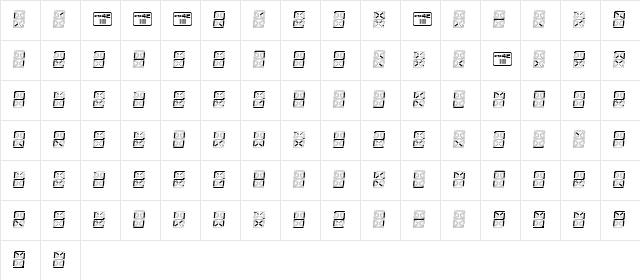
Complete eDisplay Demo Italic glyph index. Displaying only characters natively supported by eDisplay Demo Italic font.
eDisplay Demo is built around its visual character rather than neutral utility - its distinctive forms are designed to make an impression at display sizes. The slanted form adds forward momentum and visual energy.
Suited to editorial headers, event branding, and any context where the font itself is part of the message.
Font Pairing: Pair with a clean neutral sans-serif for body copy to let eDisplay Demo's character lead without overwhelming the composition.
Pro Tip: Use eDisplay Demo exclusively at display sizes - it was designed to be seen, not read at length. Let a neutral companion handle body copy.